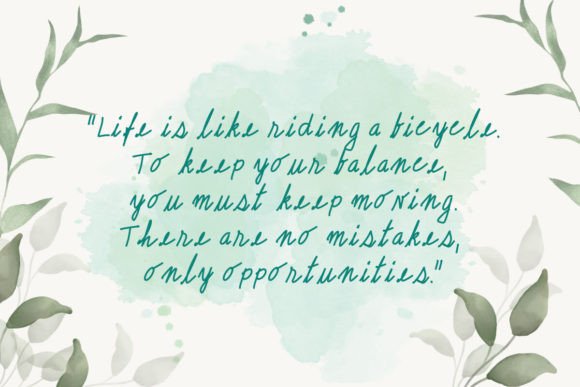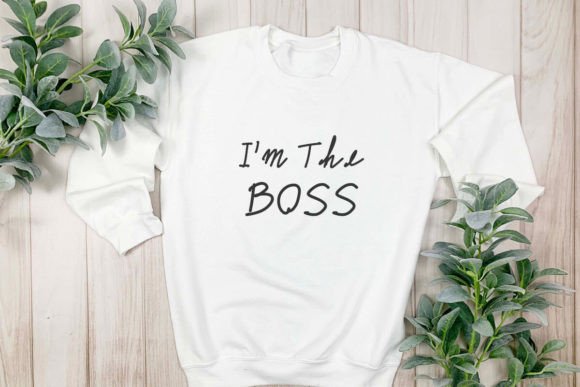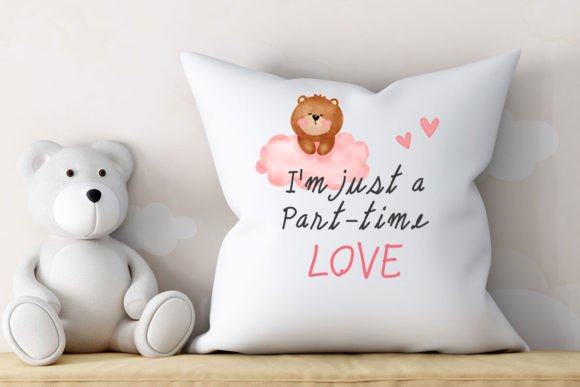
Introduction to Dejja Fu Font
Dejja Fu is a cute, playful, and stylish handwritten font.
It would be awesome for your fun projects or diary planner, wedding invitations, thank you cards, quotes, greeting cards, logos, posters, blogs, bags, T-shirts, clothing, and other designs choice for each of the creations that require a relaxed touch.
Dejja Fu Font offers exceptional quality and versatility, making it a valuable addition to your design toolkit. Whether you’re creating for personal projects or commercial use, Dejja Fu Font delivers professional results.